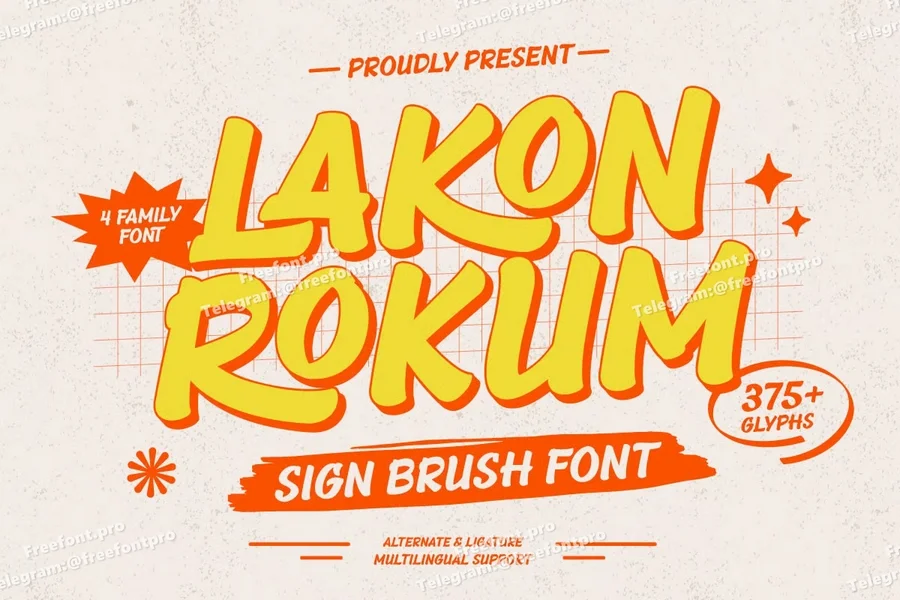
Lakon Rokum is a bold and expressive sign brush font that captures the essence of vintage sign painting and hand-crafted storefront lettering. With four versatile styles—Regular, Slant, Shadow, and Shadow Slant—this font offers endless creative possibilities for branding, posters, packaging, or promotional materials that need a strong and authentic personality.
Each stroke in Lakon Rokum reflects the raw energy of brush calligraphy, with dynamic movements and natural texture. The Slant version adds speed and flair, while the Shadow styles give depth and dimensionality that make your text pop off the page or screen.
Whether you’re designing a retro cafe logo, a barbershop sign, or bold product labels, Lakon Rokum brings a handcrafted, eye-catching feel that stands out in both print and digital design.